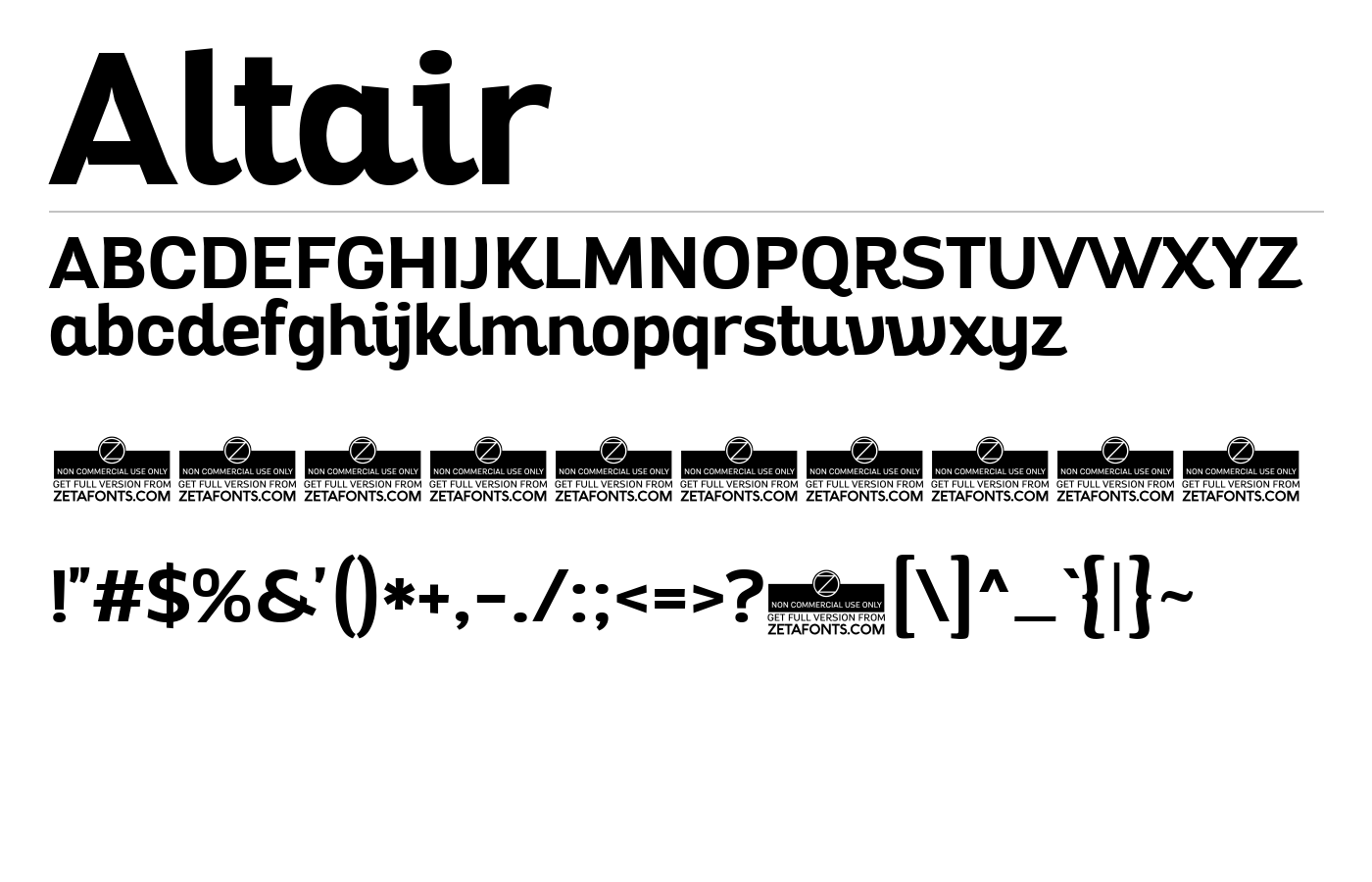
Altair is a bold and sturdy slab serif font with a strong presence and distinctive geometric shapes. Its medium x-height and moderate stroke contrast give it a balanced, modern feel while maintaining clear readability. Ideal for headlines, logos, and branding, Altair brings a confident and approachable tone to designs seeking a blend of classic solidity and contemporary style.
Altair Font
About Altair Font
| Designer | Francesco Canovaro |